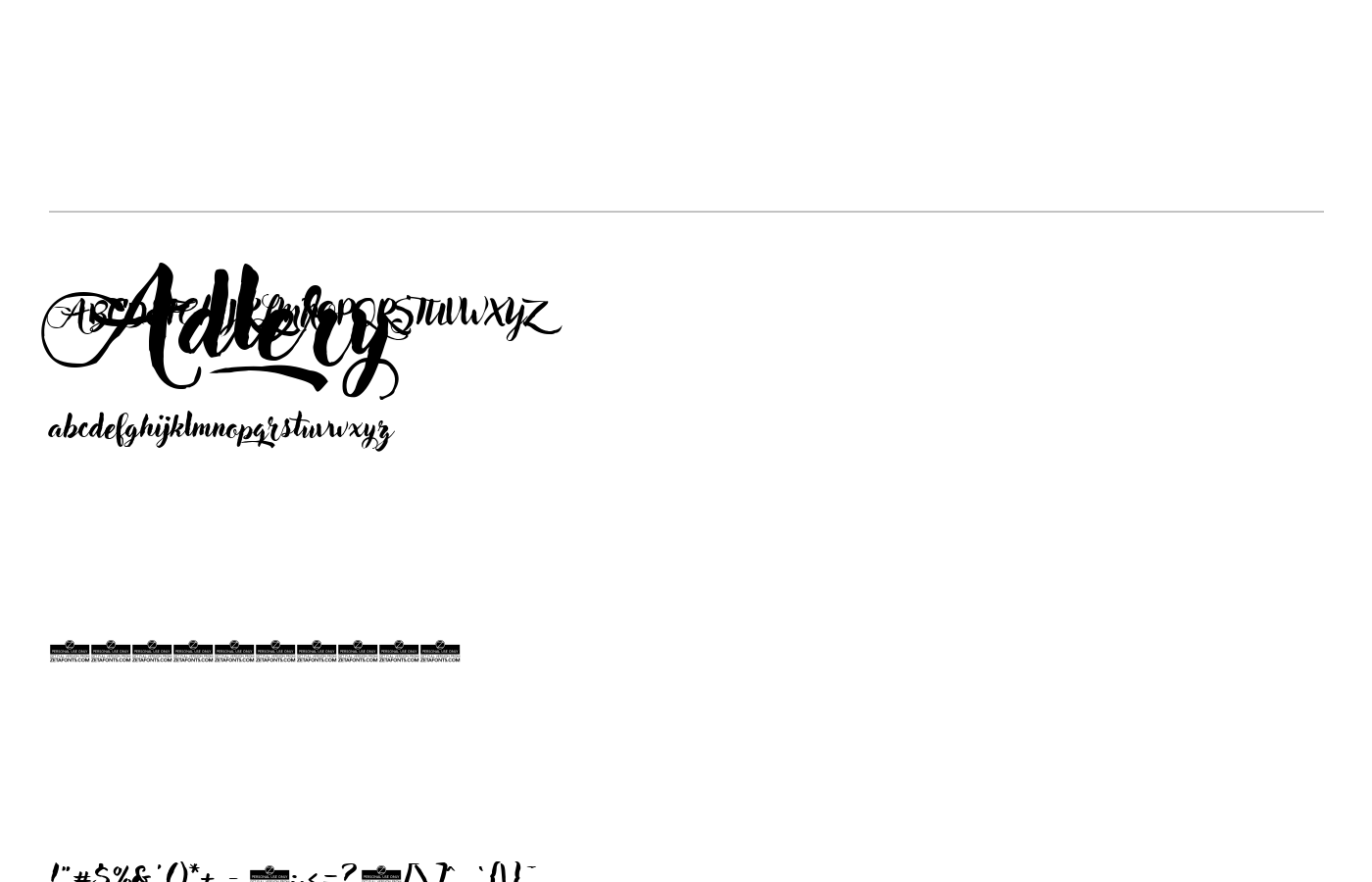
Adlery is an elegant script font with a calligraphic style that features smooth, flowing strokes and a high contrast between thick and thin lines. Its decorative letterforms, with distinctive swashes and flourishes, make it ideal for luxurious branding, invitations, and stylish headlines where a touch of sophistication and artistry is desired. This font works beautifully in designs that need a refined and graceful feel, adding a personal, handcrafted charm.
Adlery Font
About Adlery Font